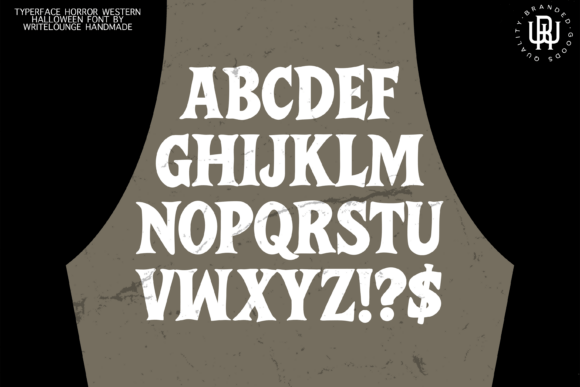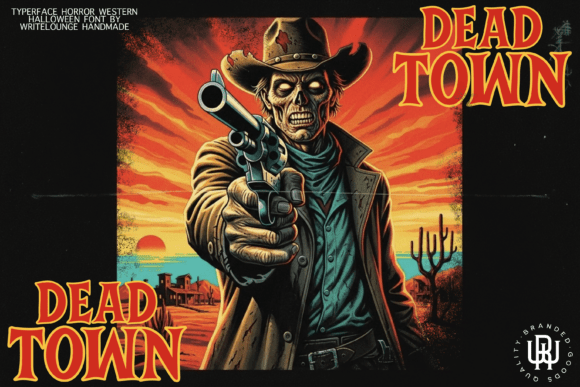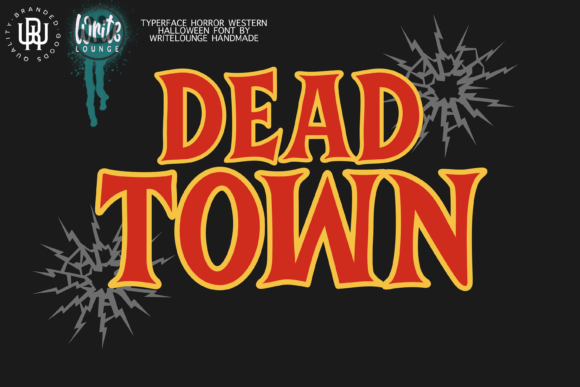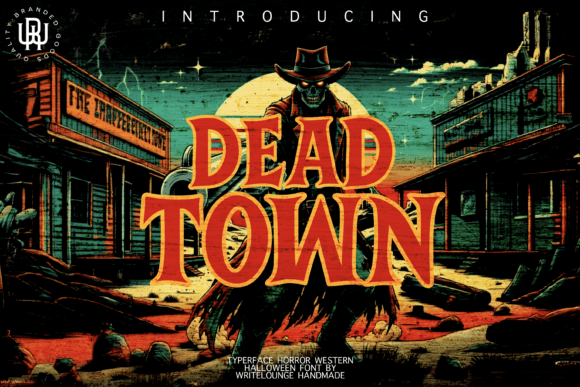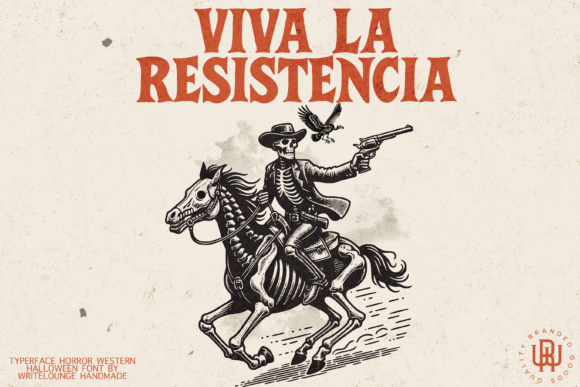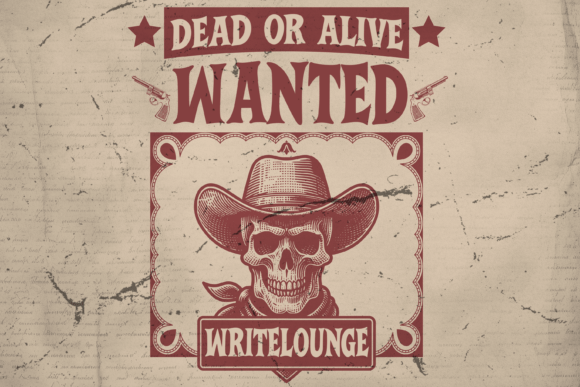
Unleash the Dark Wild West with Dead Town Font
Are you looking for a font that embodies the dark spirit of the Wild West and the eerie vibe of Halloween? Look no further than Dead Town, a bold vintage serif display font that combines the best of both worlds. With its heavy letterforms, rough edges, and subtle grunge texture, Dead Town is the perfect typeface for designers and crafters who want to add a touch of old-school Western style and spooky charm to their projects.
The Perfect Blend of Wild West and Halloween
Dead Town Font is a unique and versatile typeface that blends the ruggedness of the Wild West with the eerie atmosphere of Halloween. Its bold and heavy letterforms evoke the sense of adventure and danger that defined the American frontier, while its rough edges and grunge texture add a touch of spookiness and mystery. Whether you’re designing a Halloween-themed artwork, a Western-style poster, or a vintage-inspired apparel, Dead Town Font is the perfect choice.
Key Features of Dead Town Font
- Bold and Heavy Letterforms: Dead Town Font features bold and heavy letterforms that are perfect for creating eye-catching headlines and titles.
- Rough Edges and Grunge Texture: The font’s rough edges and subtle grunge texture give it a worn-out and handcrafted look that’s perfect for adding a touch of rustic authenticity to your designs.
- Vintage Serif Display Font: Dead Town Font is a vintage serif display font that combines the classic elegance of serif fonts with the ruggedness of the Wild West.
Dead Town Font is a versatile typeface that can be used for a wide range of design projects, including:
- Halloween & Horror Artwork: Create spooky and eye-catching artworks for Halloween or horror-themed projects.
- Western & Vintage Posters: Add a touch of old-school Western style to your posters and flyers.
- Streetwear & Band Merch: Create bold and eye-catching designs for streetwear and band merchandise.
- Whiskey, Tattoo, and Retro Labels: Use Dead Town Font to create labels and branding for whiskey, tattoo, and retro-themed projects.
- Logos, Stickers & Social Media Graphics: Use the font to create bold and eye-catching logos, stickers, and social media graphics.
Bring the Dark Wild West to Life with Dead Town
Dead Town Font is more than just a typeface – it’s a design statement. With its bold energy and rustic authenticity, it’s the perfect choice for designers and crafters who want to add a touch of the Wild West to their projects. Whether you’re creating a Halloween-themed artwork or a Western-style poster, Dead Town Font is sure to bring your designs to life.
Why Choose Dead Town Font?
- Unique and Versatile: Dead Town Font is a unique and versatile typeface that can be used for a wide range of design projects.
- High-Quality Design: The font is designed with high-quality and attention to detail, ensuring that it looks great in any design project.
- Easily Customizable: Dead Town Font is easily customizable, allowing you to adjust the font size, color, and style to fit your design needs.
In conclusion, Dead Town Font is a bold vintage serif display font that combines the dark spirit of the Wild West with the eerie vibe of Halloween. With its heavy letterforms, rough edges, and subtle grunge texture, it’s the perfect typeface for designers and crafters who want to add a touch of old-school Western style and spooky charm to their projects. Whether you’re creating a Halloween-themed artwork, a Western-style poster, or a vintage-inspired apparel, Dead Town Font is the perfect choice.